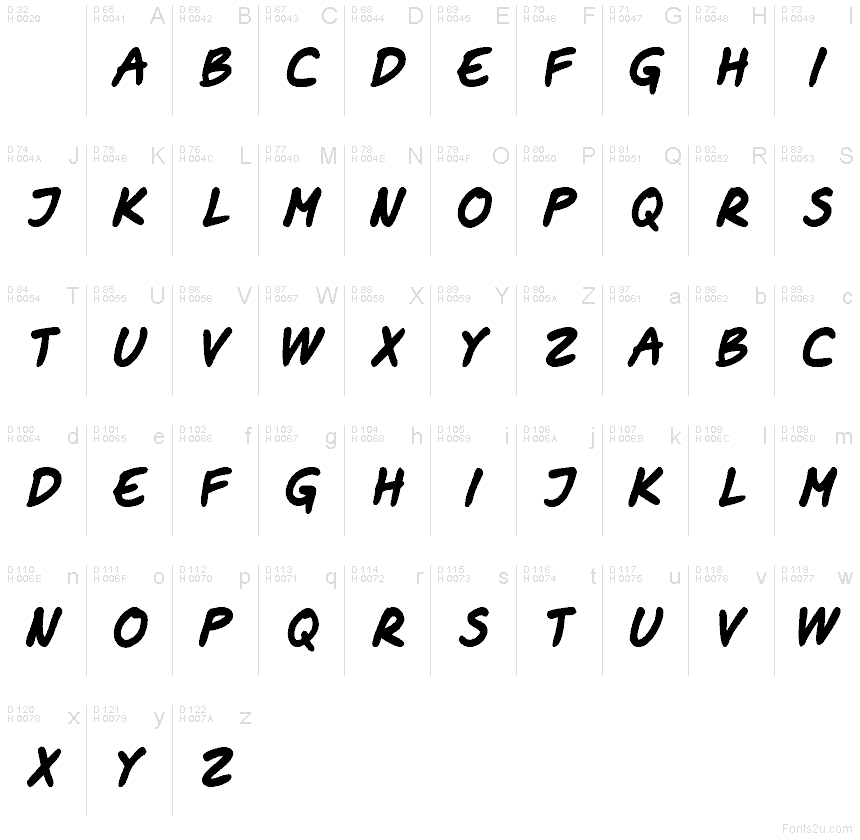
Diana Book Italic
Diana Book Italic font is made by Vladimir Nikolic. This bold style brush font features slim letter designs with distinctive stylish vision. The slanted, italic orientation also contributes to the angle of each of the displayed characters. Straight & horizontal lines are almost minimized within this free font pushing curves and round edges forward.
Possible places to use Diana Book Italic include author names on book covers, printing packaging design information, magazine cover titles, product labeling of various types, and writing posters/ flyers or banners’ headlines. Further usage ideas can be in branding, marketing campaigns as well as business cards and invitations.
It is available in both Regular and Book versions.